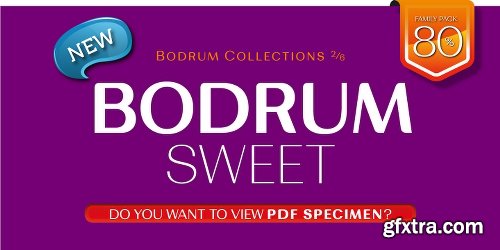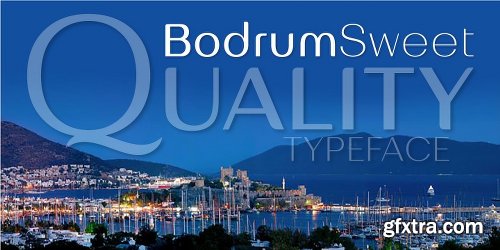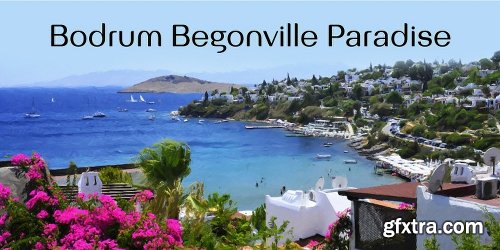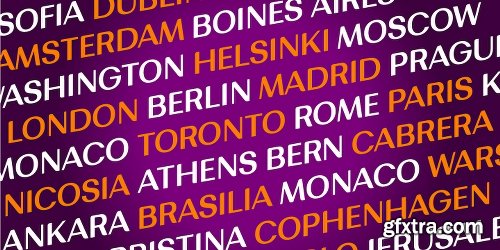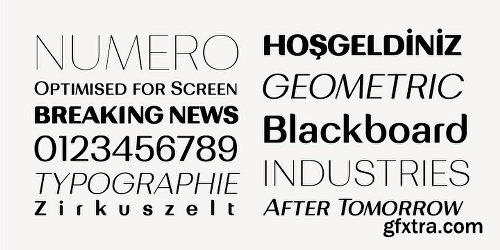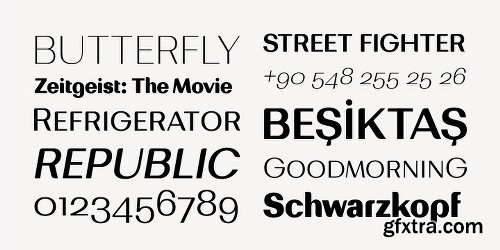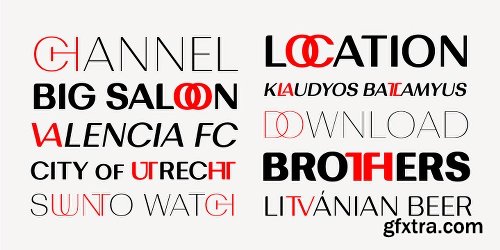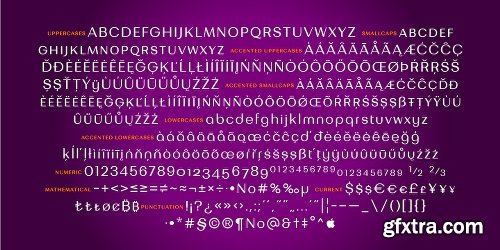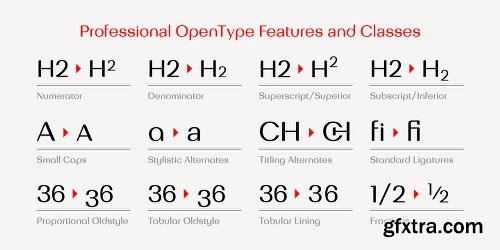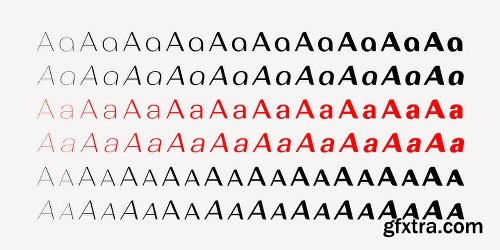
Bodrum Collection: 1- Bodrum Sans 2- Bodrum Sweet 3- Bodrum Stencil 4- Bodrum Slab 5- Bodrum Styte 6- Bodrum Soft “Bodrum Sweet” is a sans serif type family. Designed by Bülent Yüksel in 2018/19. The font, influenced by style serifs, popular in the 1920s and 30s, is based on optically corrected geometric forms for better readability. “Bodrum Sweet” is not purely geometric; it has vertical strokes that are thicker than the horizontals, an “o” that is not a perfect circle, and shortened ascenders. “Bodrum Sweet” some corner is rounded. These nuances aid in legibility and give “Bodrum Sweet” a harmonious and sensible appearance for both texts and headlines. Bodrum Sweet provides advanced typographical support for Latin-based languages. An extended character set, supporting Central, Western and Eastern European languages, rounds up the family. The designation “Bodrum Sweet 14 Regular” forms the central point. “Bodrum Sweet” is available in 10 weights (Hair, Thin, Extra-Light, Light, Regular, Meduim, Bold, Extra-Bold, Heavy and Black) and 10 matching italics. The family contains a set of 650+ characters. Case-Sensitive Forms, Classes and Features, Small Caps from Letter Cases, Fractions, Superior, Inferior, Denominator, Numerator, Old Style Figures just one touch easy In all graphic programs. Bodrum Sweet is the perfect font for web use. You can enjoy using it.